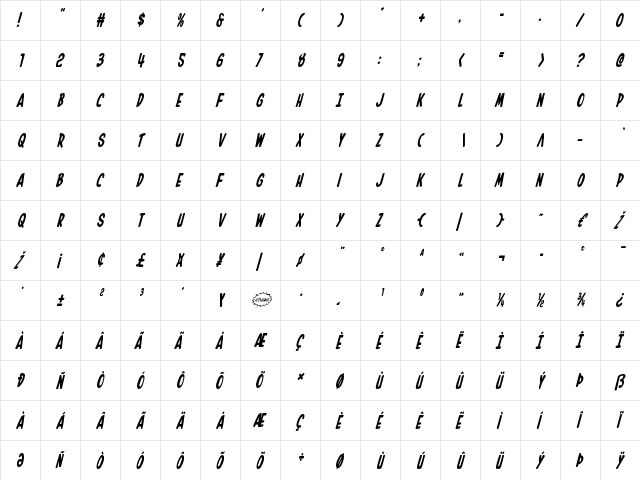
In-House Edition Condensed Italic Condensed Italic
Design Context for In-House Edition Condensed Italic Typeface
In-House Edition Condensed Italic is a composed and adaptable typeface that performs quietly and consistently across a wide range of design contexts. The slanted form adds forward momentum and visual energy. Its narrow stance lets it pack a punch even in space-constrained designs.
Pro Tip: Use In-House Edition Condensed Italic for emphasis, pull quotes, and subheadings where its slanted energy can add rhythm to the layout.